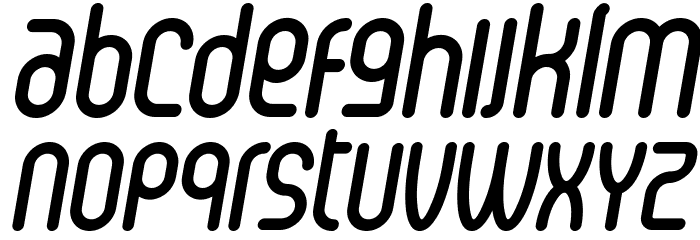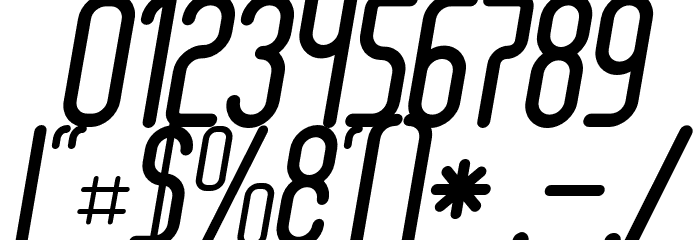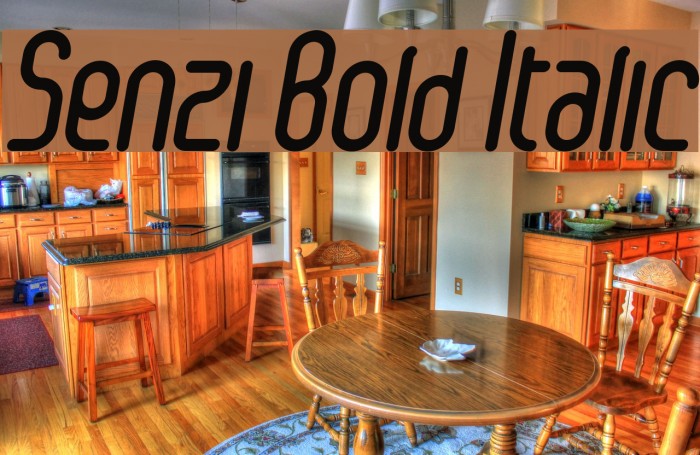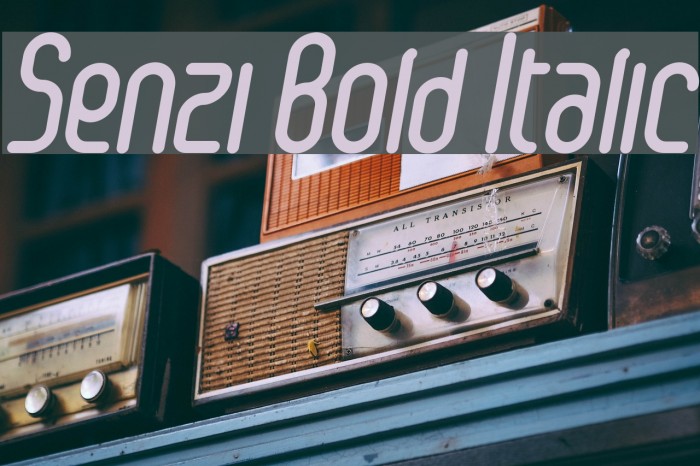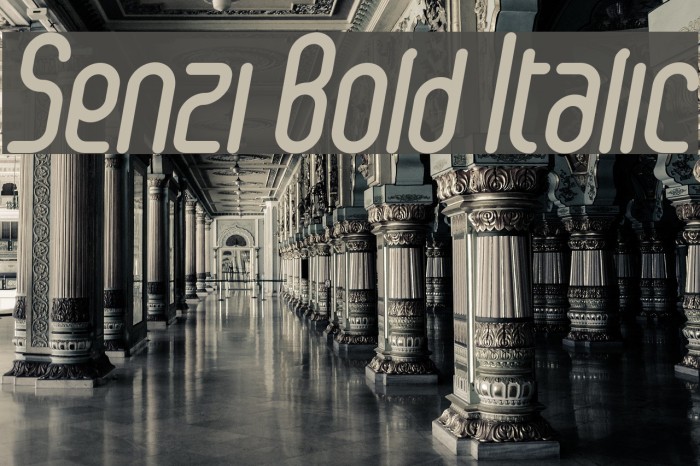
Senzi Bold Italic Font
This font features a bold and italicized style with a modern, sleek appearance. The characters are elongated with rounded edges, giving it a smooth and fluid look. The uppercase and lowercase letters maintain a consistent height, creating a uniform appearance. The numbers and special characters are designed to match the overall style, ensuring cohesion across all elements. The font's design is both contemporary and versatile, making it suitable for a variety of applications. Its boldness and slight slant add a dynamic and energetic feel, perfect for catching attention.
A bold, italicized font with a modern and sleek design.